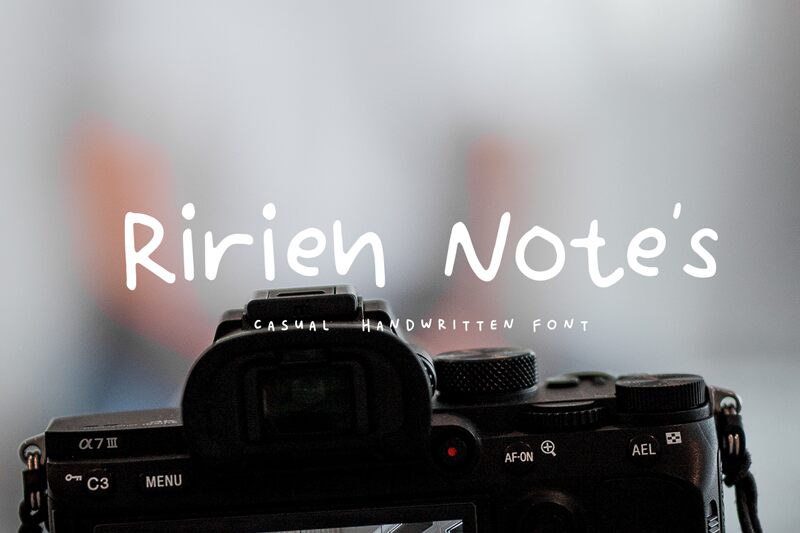
Ririen Note's Regular
Ririen Note's font by Scratch Design is a free handwritten font that delights in its casual and freeform style. With its modern aesthetic, it combines visual appeal with versatility to fit most types of design projects. The strokes mimic the natural imperfections of handwriting, conveying warmth and approachability to readers.
Use Ririen Note’s font for personal branding projects such as signatures or portfolios. Use it in headings and subheadings on websites, blogs, printed magazines, or newspapers. Design posters that carry that unique flair or other advertising materials like brochures and flyers. Packaging and label designs benefit from this stylish typeface likewise!